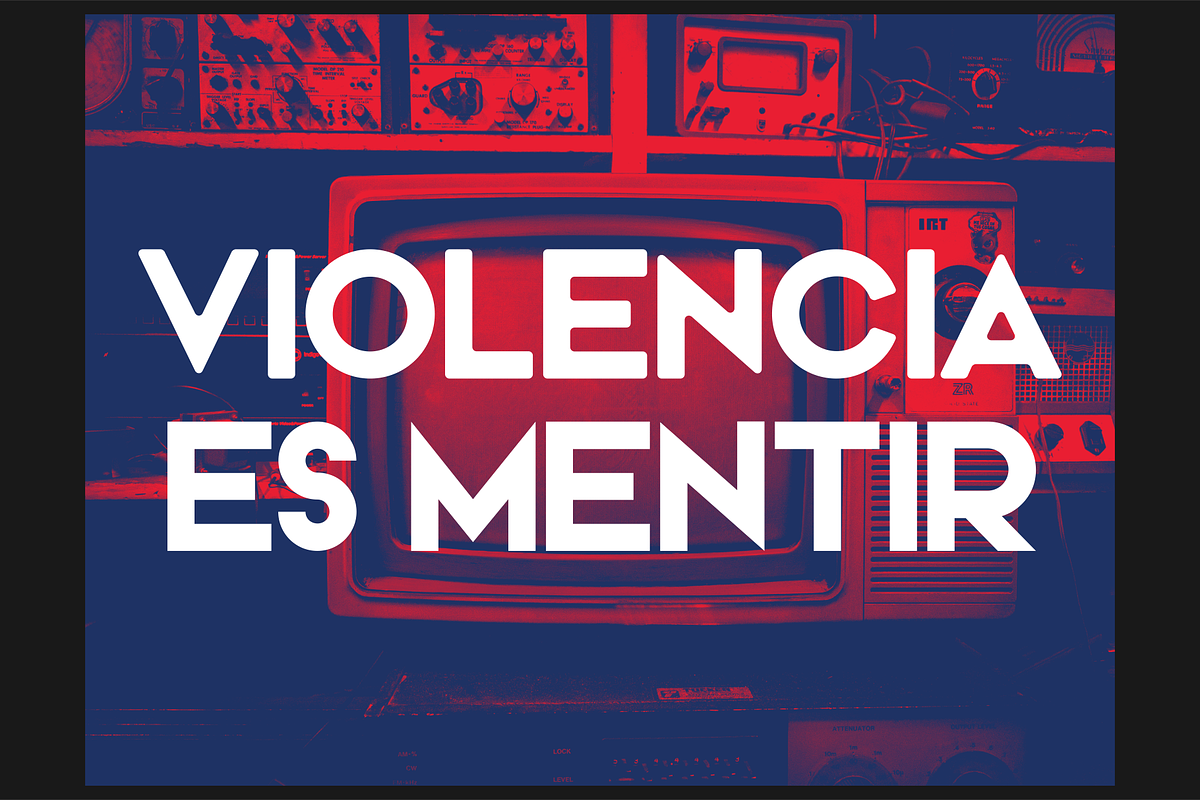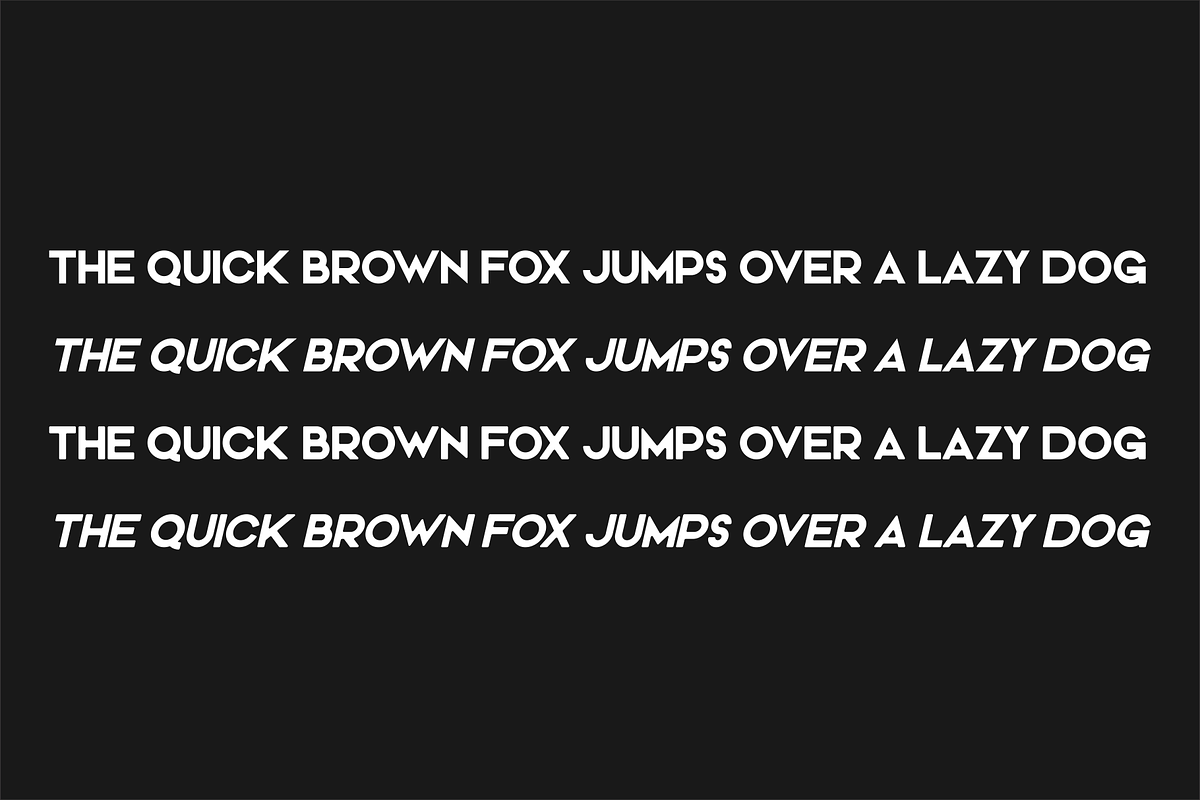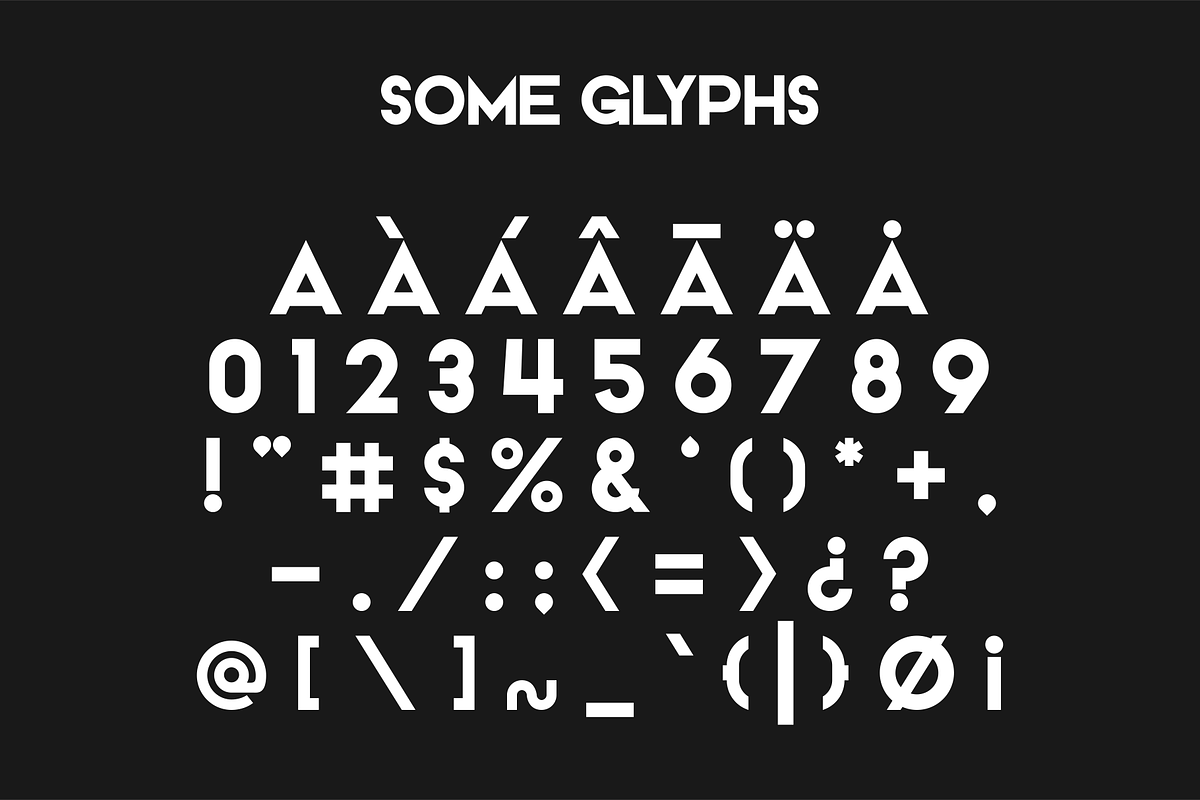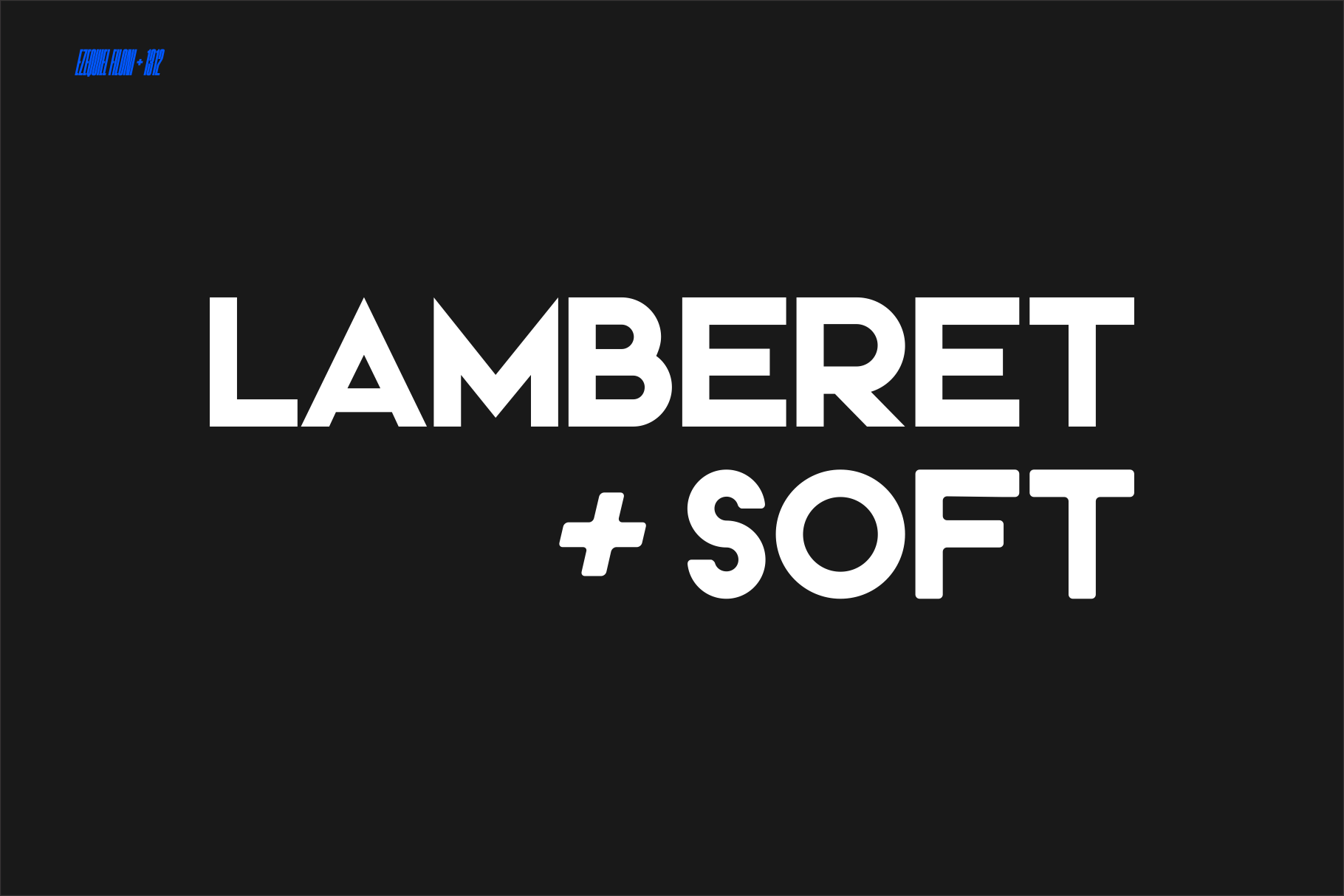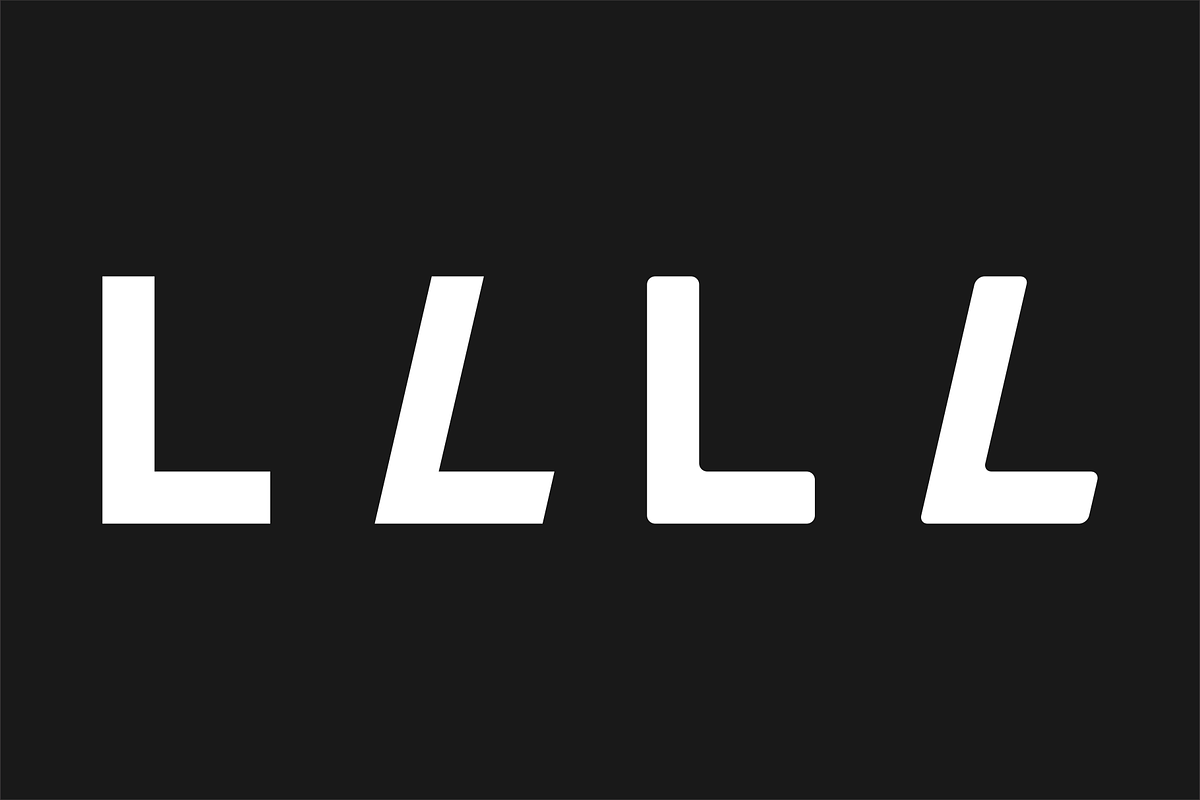
Lamberet - Display fonts
Lamberet is a geometric sans-serif typeface, all caps display font. Has a clean, sharp and emphatic form especially suitable for headlines, headings, branding, posters, packaging, titles, logos or whatever. It comes in its italics forms for regular sharp and soft versions.